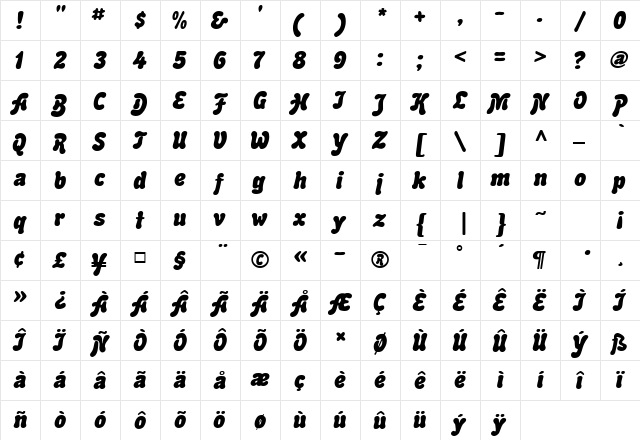
Advert MF Italic
Design Context for Advert MF Typeface
Advert MF is a composed and adaptable typeface that performs quietly and consistently across a wide range of design contexts. Its italic angle brings a sense of urgency and motion to the letterforms.
Pro Tip: Try Advert MF for annotation and caption copy alongside an upright companion — the contrast in angle creates a dynamic but ordered typographic system.